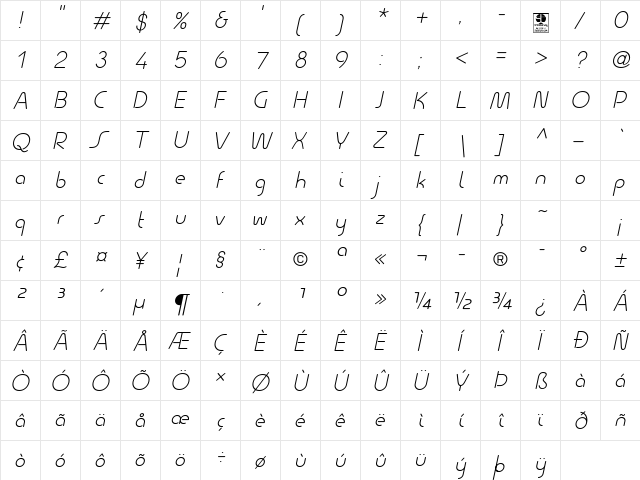
Quesat Light Demo Italic Font Preview
| Foundry | StudioTypo |
| Designer | Mehmet Abac |
Design Context for Quesat Light Demo Typeface
Quesat Light Demo takes a measured approach to typography — its balanced proportions and neutral character make it a reliable workhorse for both digital and print work. Its italic angle brings a sense of urgency and motion to the letterforms. Its slender proportions lend an understated elegance to any composition.
Pro Tip: Try Quesat Light Demo for annotation and caption copy alongside an upright companion — the contrast in angle creates a dynamic but ordered typographic system.